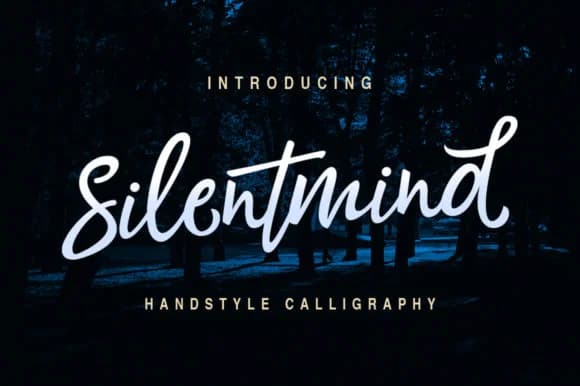
Silentmind Font by riversidetypefoundry is a modern calligraphy script that captures the authentic warmth and personality of hand-lettered design work. Built on fluid, expressive strokes and organic letterforms, this typeface delivers the refined brushed elegance that contemporary brands and creative professionals seek when they need authenticity without sacrificing visual polish. The design includes extensive letter variations and multiple character glyphs, giving designers the creative freedom to layer different letterforms within a single composition for added visual interest, depth, and distinctiveness that standard typefaces cannot deliver.
Silentmind excels across wedding invitation suites where calligraphic flourishes establish ceremony and elegance, boutique skincare packaging where refined handwriting signals artisanal craft and attention to detail, and social media quote graphics where personal warmth builds genuine audience connection. The varied letterforms also serve custom stationery projects, DIY craft applications, greeting card designs, and small business branding where the script's organic character makes each piece feel intentionally handcrafted. Whether applied to logo concepts, editorial layouts, or packaging design systems, the typeface bridges the gap between formal sophistication and approachable, human-centered aesthetic sensibilities.
Silentmind Font is a script font that shines as a display or heading face. Pair it with a clean sans-serif or serif font for body text β the contrast creates a clear hierarchy while the two styles stay balanced and easy to read.